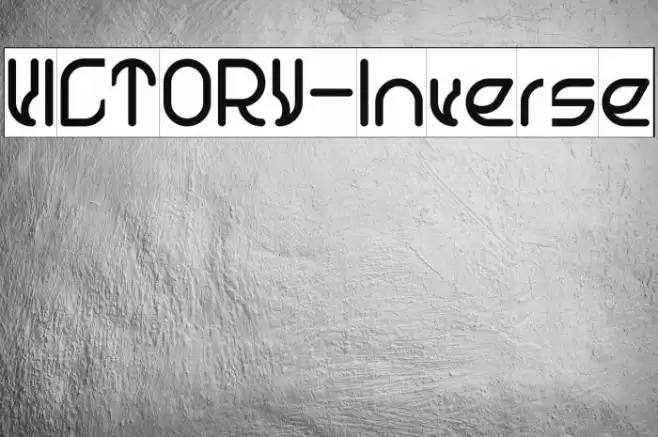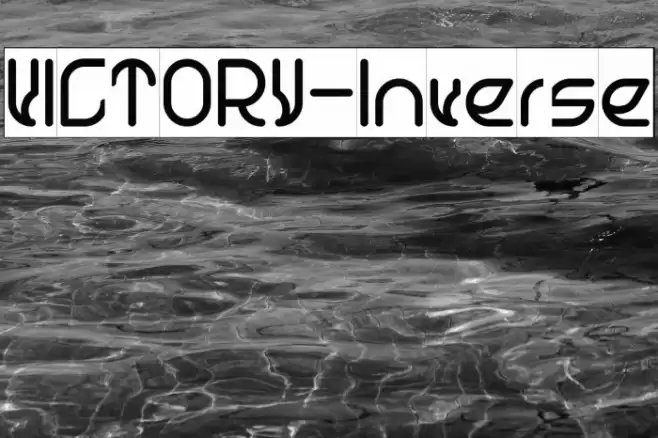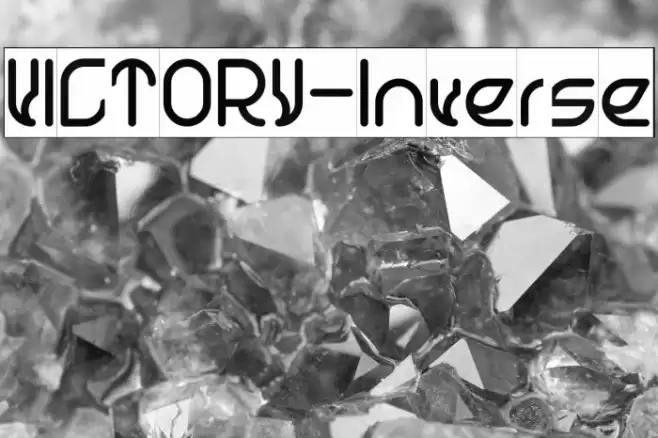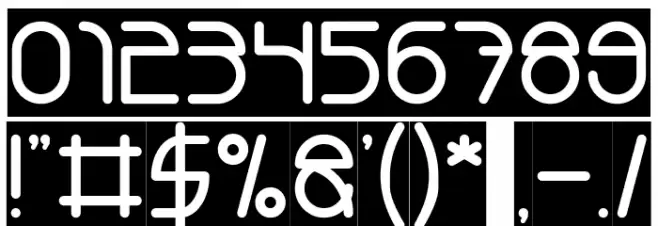
VICTORY-Inverse Font
VICTORY-Inverse Description
This font features a futuristic and geometric design with rounded edges and a consistent stroke width. The characters are constructed with a blend of straight lines and smooth curves, creating a modern and sleek appearance. The uppercase and lowercase letters maintain a uniform style, enhancing readability while adding a unique flair. The numerals and special characters follow the same design principles, ensuring a cohesive look across all elements. This font is ideal for projects that require a contemporary and innovative touch.
A futuristic, geometric font with rounded edges and consistent stroke width from Uncategorized fonts.
- Proposed Projects: Ideal for tech branding, modern advertisements, digital interfaces, and sci-fi themed designs.
- Overall Style: Futuristic
- Use Case: Headlines, Logos, Digital Interfaces